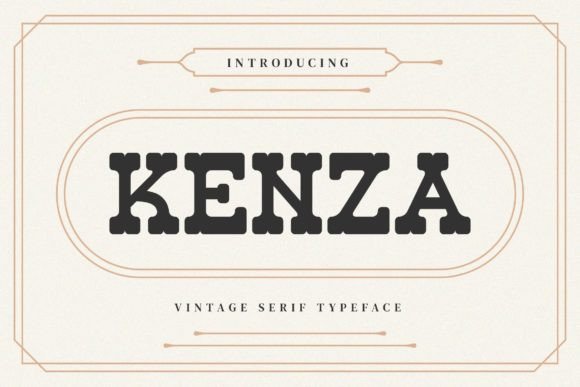
Step into the world of sophisticated typography with Kenza Font, a serif masterpiece crafted to elevate your creative endeavors. Inspired by the allure of minimalist logos, Kenza exudes an air of elegance and professionalism, making it the perfect choice for discerning designers seeking to leave an indelible mark.
With its timeless curves and delicate strokes, Kenza effortlessly lends a touch of refinement to any project. Its versatility knows no bounds, seamlessly adapting to a myriad of design applications. Whether you're crafting captivating templates, brochures that speak volumes, or videos that ignite imaginations, Kenza is your trusted companion, transforming your visions into tangible works of art.
Experience the transformative power of Kenza in advertising branding, where its presence commands attention and leaves a lasting impression. Create logos that resonate with your brand's essence, embodying its values and aspirations. Design invitations that exude sophistication, setting the tone for unforgettable occasions. Utilize Kenza's graceful presence in layout designs, adding a touch of poise and harmony to your creative compositions.
Unleash your inner artist with Kenza, the font that elevates elegant crafting to new heights. Its intricate details and refined aesthetic lend a touch of magic to your creations, whether it's designing captivating beauty products or crafting exquisite works of art. Kenza effortlessly elevates the ordinary, transforming it into the extraordinary.
Immerse yourself in the world of Kenza Font, a symphony of elegance and versatility. Its timeless beauty and wide-ranging applications make it an indispensable tool for designers seeking to make a statement. Let Kenza be your muse, guiding you towards creative triumphs and leaving an enduring legacy of design excellence.